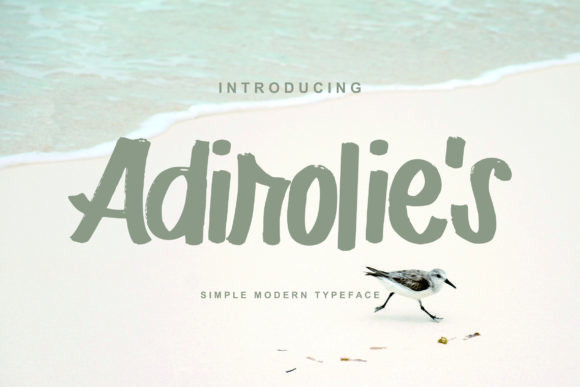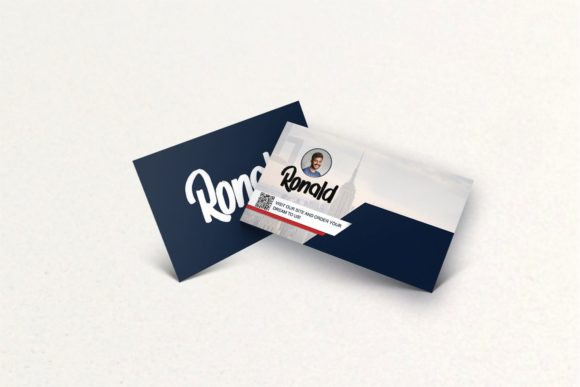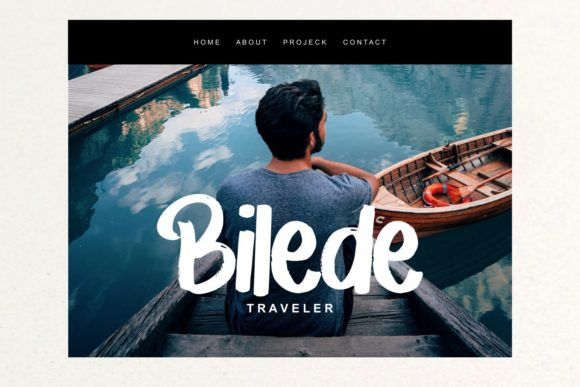
Adirolie’s Font
Adirolie’s is a relaxed handwritten font. Clean and a little bit quirky, this font is the perfect fit for all of your logos, branding, social media, and crafty DIY projects.